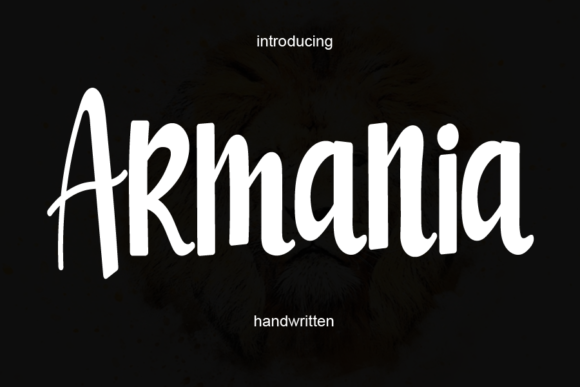
Journey through time with Armania, a captivating script font that exudes vintage charm. Crafted by the talented Alfa studio, this font is a true gem, meticulously designed to evoke nostalgia and elegance in your creative projects. Lose yourself in the beauty of perfectly flowing lines, each stroke imbued with the authenticity of hand-lettering. Armania's allure lies in its ability to transport you to a bygone era, adding a touch of timeless sophistication to your designs.
With Armania at your fingertips, unleash your creativity and create designs that capture the hearts of your audience. Picture your vintage logos adorned with Armania's graceful curves, radiating an old-world charm that sets your brand apart. Design enchanting wedding invitations, greeting cards, or heartfelt posters that resonate with warmth and sentimentality. Let Armania be your muse as you craft social media posts and marketing materials that evoke a sense of nostalgia and connection.
The possibilities are endless with Armania. Its versatile nature makes it the perfect font for a multitude of projects. Dive into the world of branding and create logos that exude a classic, vintage vibe. Embark on a journey of crafting stunning invitations and stationery that transport your recipients to an era of elegance. Let Armania guide you as you design social media posts that captivate your audience with their timeless beauty.
Armania is more than just a font; it's an expression of artistry and a gateway to a world of vintage charm. Join the ranks of creative visionaries who have embraced Armania's magic and witnessed the transformation it brings to their designs. Embrace the beauty of the past and let Armania be the key to unlocking your creative potential. So, why wait? Immerse yourself in the world of Armania today and let your creativity soar!